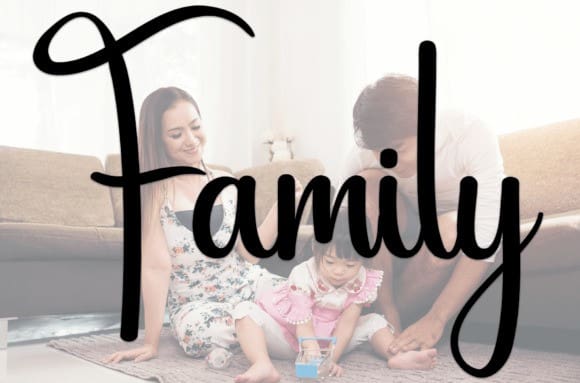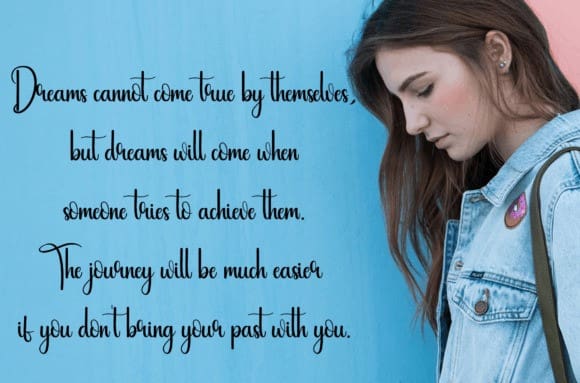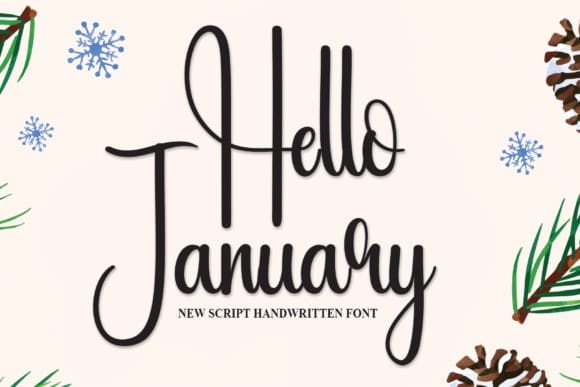
Hello January Typeface
Hello January Typeface, is a sweet and friendly handwritten font. Fun and relaxed, this font is ideal for writing wedding invitations, cards, or any other design that might need a lovely touch!